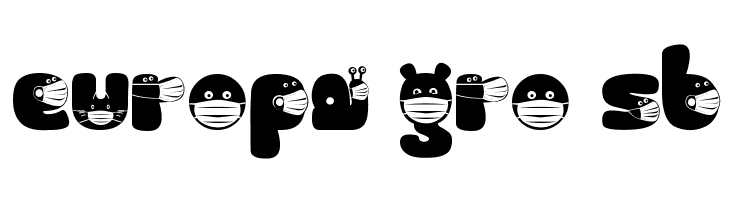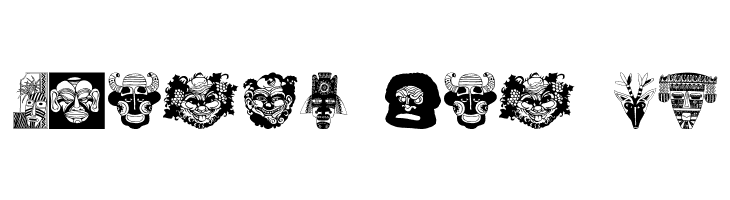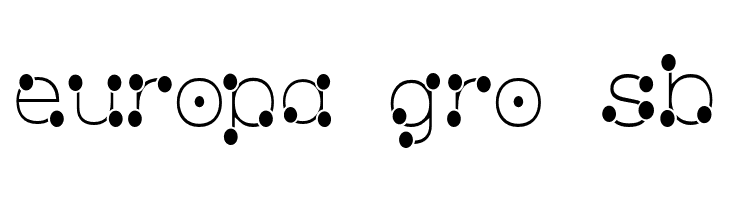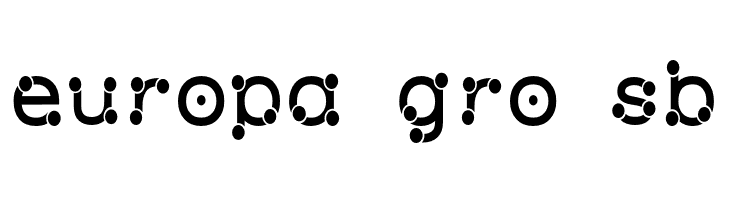
A playful, bold font with cartoonish faces on each character.
A decorative font where each character is an ornate mask illustration.
A playful, geometric font with dotted and linear matchstick-like elements.
A modern, decorative font with dots and lines creating a playful, abstract style.